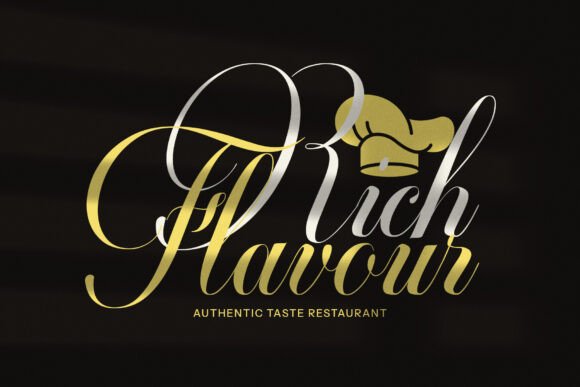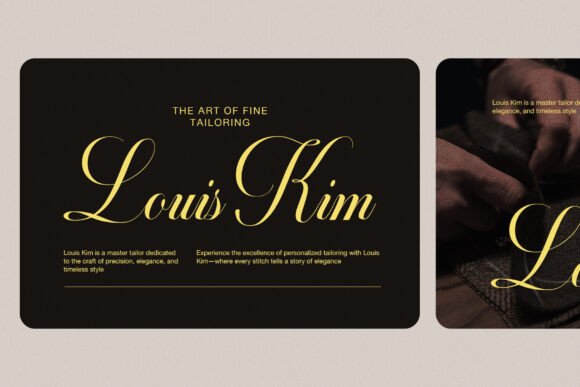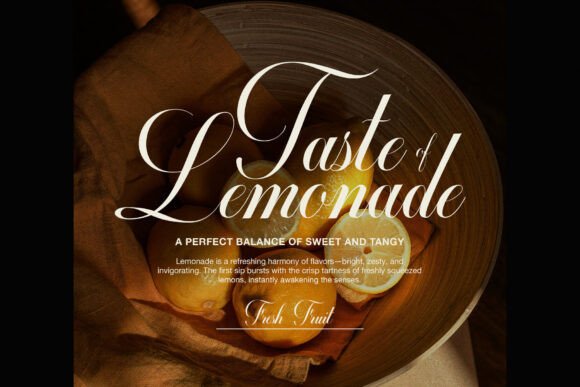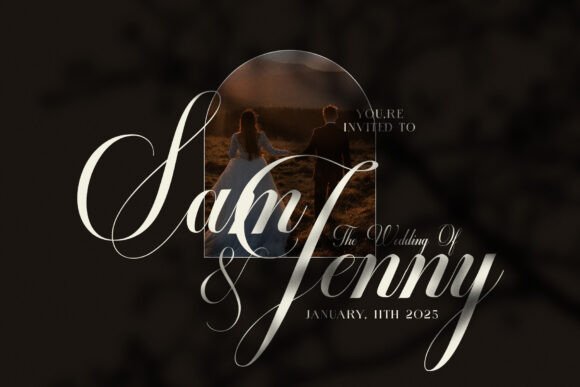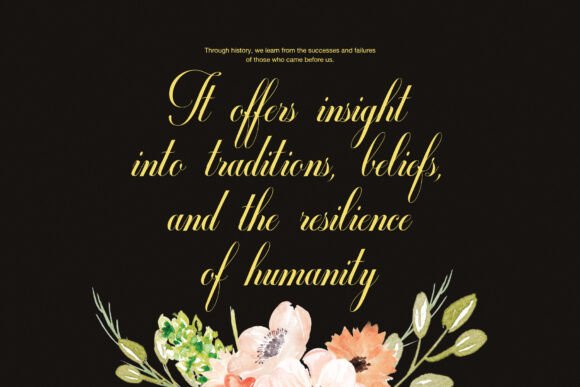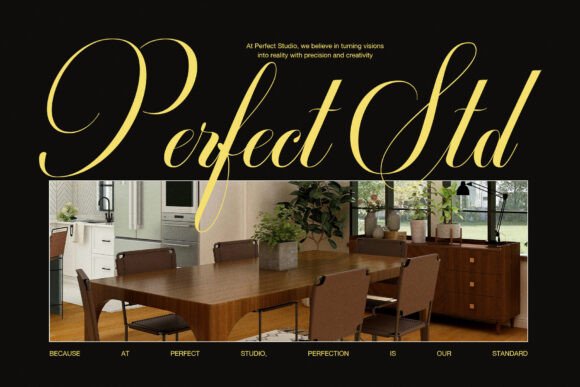
The Perfect Touch of Elegance: Unveiling the Bellvania Font
Have you ever been brainstorming design ideas, pouring over sketches and color palettes, and suddenly, a single font can transport you to a world of sophistication and charm? That’s exactly what happens when you discover the Bellvania Font. This refined and sophisticated typeface is designed to add a luxurious and artistic touch to any design, elevating branding, logos, and high-end packaging with its flowing, hand-drawn aesthetic.
As a designer, you’re constantly on the lookout for that perfect font that can make your creations stand out. Bellvania Font is that game-changer. Its delicate strokes, exquisite alternates, and meticulously designed letterforms make every word feel effortlessly beautiful. Whether you’re crafting wedding invitations, designing stylish business cards, or creating an elegant website, Bellvania Font ensures a polished and captivating visual appeal that’s sure to leave a lasting impression.
- Unique Characteristics: Bellvania Font features a unique blend of modern and vintage elements, with a distinctive rounded shape and subtle flair at the terminals, making it a standout choice for designers seeking a unique look.
Bellvania Font Review
I’ve had the chance to work with the Bellvania Font, and I must say, it’s a decent addition to any designer’s toolkit. ✨ The font’s unique blend of elegance and playfulness works well for a variety of projects, from branding to editorial design.
Here are some of its strengths:
- ✨ Beautiful script lettering: The Bellvania Font’s script style is a standout feature, perfect for adding a touch of sophistication to your designs.
- ✨ Wide character set: The font includes a wide range of characters, including international characters, making it suitable for global design projects.
- ✨ Versatile: Bellvania Font can be used in various settings, from headings to body text, and even as a decorative element.
- ⚠️ Limited font weights: The font only comes in a few weights, which may limit its usability in complex design compositions.
- ⚠️ Not ideal for small text: While the font is beautiful, it may not be the best choice for small text sizes, as the letterforms can become difficult to read.
Overall, I think the Bellvania Font is a solid choice for designers who want to add a touch of elegance and playfulness to their work. While it may not be the perfect font for every project, it’s definitely worth considering for the right applications.
Tips for Getting the Most Out of the Bellvania Font
For best results, use the Bellvania font in combination with bold and italic text to create visual interest.
Experiment with different font sizes and colors to create a unique look.
Use the Bellvania font in conjunction with other design elements, such as images and shapes, to create a cohesive visual identity.
The Bellvania font is ideal for:
Designing invitations and event materials